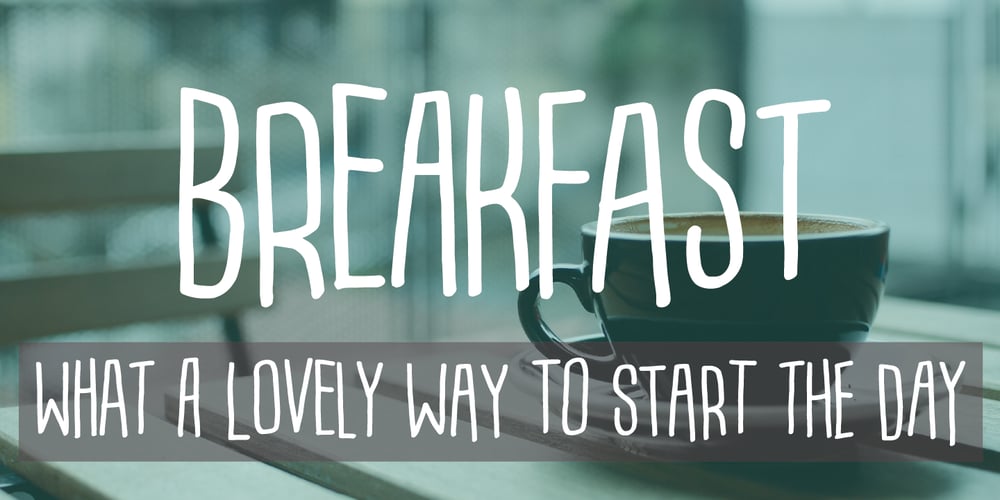
Breakfast Font Family was designed by Jakob Fischer and published by PizzaDude.dk. Breakfast contains 1 styles and family package options. This is close to insane! My Breakfast font has got 8 (yes EIGHT!) different versions using contextual alternates! They cycle nice and easy AS you type! How cool is that?! Ofcourse, the font is also loaded with diacritics!